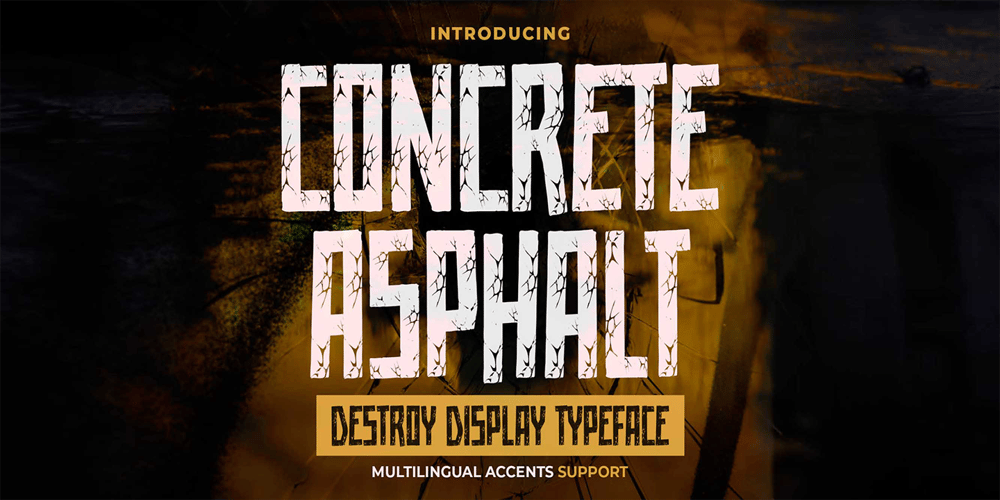
Concrete Asphalt Font Family was designed by Abdul Malik Wisnu, Anang Fibriyanto and published by Gassstype. Concrete Asphalt contains 1 styles and family package options. Hello Everyone, introduce our new product Concrete Asphalt is Destroy Display Typeface with a natural feel. This handmade font will make your design has a beautiful natural touch for each details. It is perfect for any design project as Invitation,logo, book cover, craft or any design purposes.Concrete Asphalt is Inspired by Food Logo style and combination with Unique Craft style. that will fulfill your design needs for quotes,sporty theme, logotype, wordmark, etc. This has many opentype features and support multi language.This font is PUA encoded which means you can access all of the magical glyphs with ease!